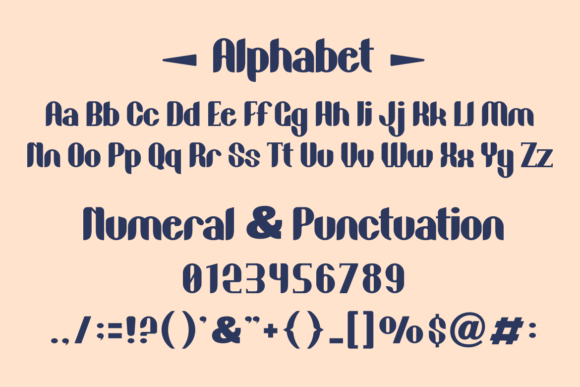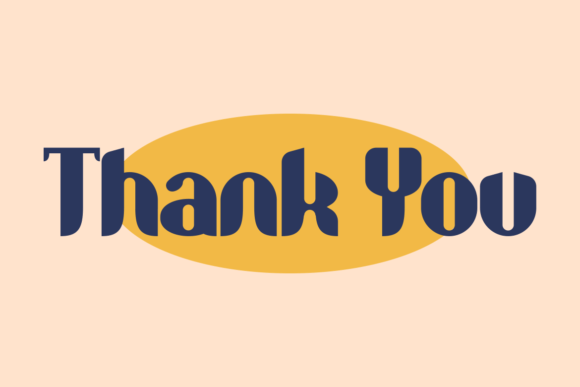
Introducing Alfatica Font: The Fun and Bold Display Font You Need
Are you tired of using the same old fonts in your designs? Do you want to add a touch of personality and whimsy to your creations? Look no further than Alfatica Font, a fun and bold display font that’s sure to elevate your font library.
What is Alfatica Font?
Alfatica Font is a modern, sans-serif font that’s designed to make a statement. With its bold and playful style, it’s perfect for adding a touch of humor and personality to your designs. Whether you’re working on a logo, a poster, or a social media graphic, Alfatica Font is sure to grab attention and leave a lasting impression.
Key Features of Alfatica Font
- Fun and playful style: Alfatica Font is designed to be fun and engaging, making it perfect for designs that need a bit of personality.
- Bold and eye-catching: With its bold style, Alfatica Font is sure to grab attention and stand out from the crowd.
- Versatile: Whether you’re working on a logo, a poster, or a social media graphic, Alfatica Font is versatile enough to fit any design need.
- Easy to read: Despite its bold style, Alfatica Font is easy to read, making it perfect for designs that need to communicate a message.
Why You Need Alfatica Font in Your Font Library
Alfatica Font is more than just a font – it’s a design asset that can elevate any creation. Here are just a few reasons why you need Alfatica Font in your font library:
- Adds personality to your designs: With Alfatica Font, you can add a touch of humor and personality to your designs, making them more engaging and memorable.
- Perfect for headlines and titles: Alfatica Font is designed to be attention-grabbing, making it perfect for headlines and titles.
- Great for branding and marketing materials: Whether you’re working on a logo, a brochure, or a social media campaign, Alfatica Font is a great choice for branding and marketing materials.
- Easy to pair with other fonts: Alfatica Font is easy to pair with other fonts, making it versatile enough to fit any design need.
How to Use Alfatica Font
Alfatica Font is easy to use and can be incorporated into your designs in a variety of ways. Here are a few tips for using Alfatica Font:
- Use it as a headline font: Alfatica Font is perfect for headlines and titles, where its bold style can really make an impact.
- Pair it with other fonts: Alfatica Font is easy to pair with other fonts, making it versatile enough to fit any design need.
- Experiment with different colors: Alfatica Font looks great in a variety of colors, so don’t be afraid to experiment and find the perfect color for your design.
Alfatica Font is a fun and bold display font that’s sure to elevate your font library. With its playful style, bold and eye-catching design, and versatility, it’s perfect for adding a touch of personality to your designs. Whether you’re working on a logo, a poster, or a social media graphic, Alfatica Font is a great choice. So why wait? Add Alfatica Font to your font library today and start creating designs that are truly unforgettable.